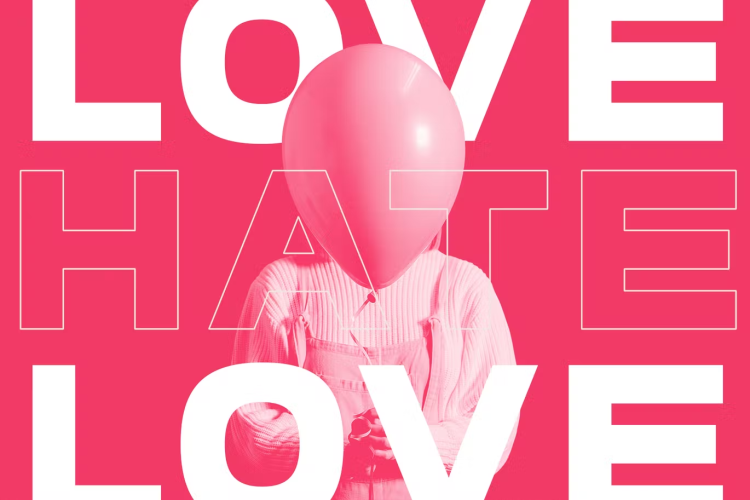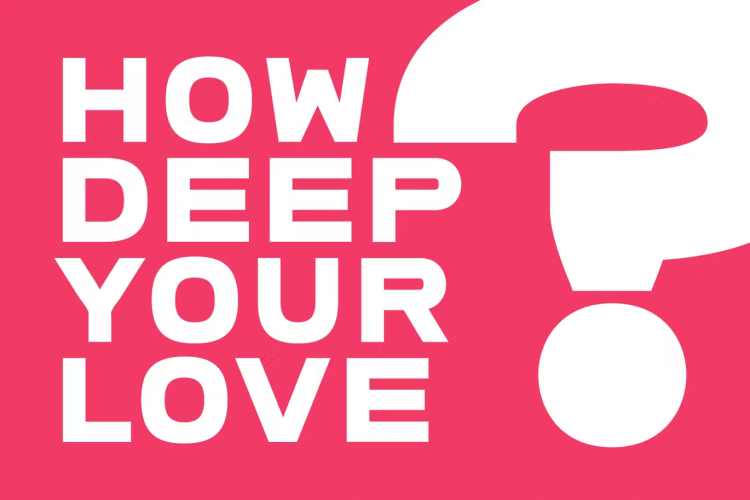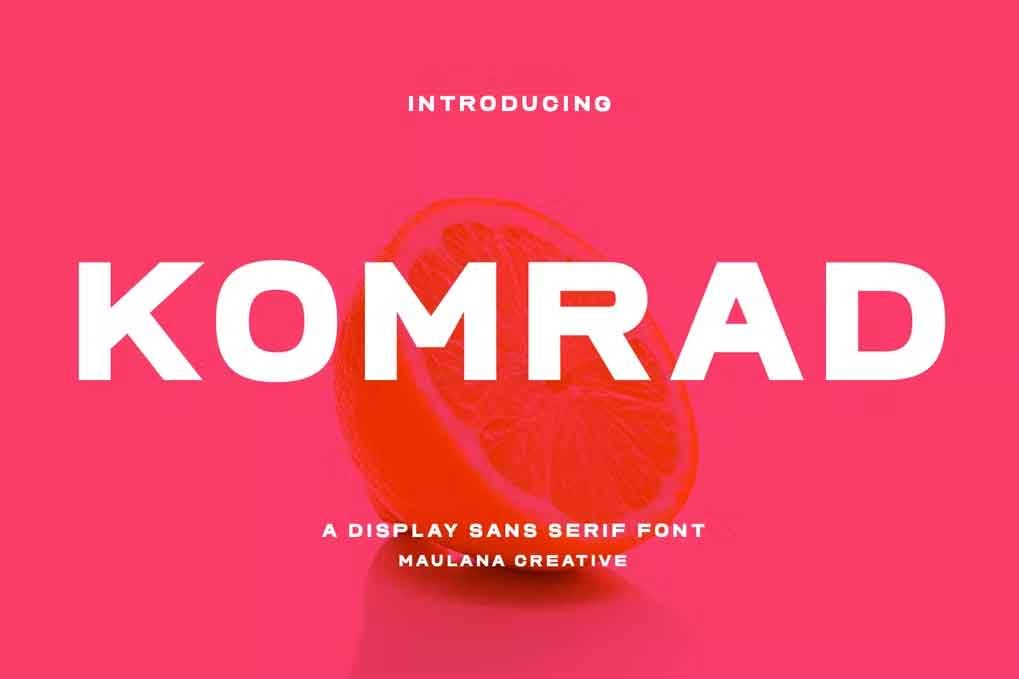
Komrad Sans Display Font
Komrad is an all caps modern sans serif font. With semi bold stroke, fun character with a bit of ligatures and alternates. To give you an extra creative work. Komrad fon…
Komrad is an all caps modern sans serif font. With semi bold stroke, fun character with a bit of ligatures and alternates. To give you an extra creative work. Komrad font support multilingual more than 100+ language. This font is good for logo design, Social media, Movie Titles, Books Titles, a short text even a long text letter and good for your secondary text font with sans or serif. Make a stunning work with Komrad font.
Where Komrad Sans Display Font works best
Komrad Sans Display Font keeps its shape at 14 and 16 pixels, which is where interface text actually lives. Numbers and capitals stay distinguishable in tables.
Presentations are read at a distance; a clean sans with a strong bold is the safest hierarchy you can build in a hurry.
Simple letterforms survive angles, glare and movement, so Komrad Sans Display Font suits door signs, menus boards and exhibition panels.
What kind of work does Komrad Sans Display Font suit?
It sits in the Sans Serif Fonts group and reads as bold, creative, display, modern. That makes it a candidate wherever those qualities help: headings, packaging, social graphics and brand work. Set it at the size you plan to use before deciding.